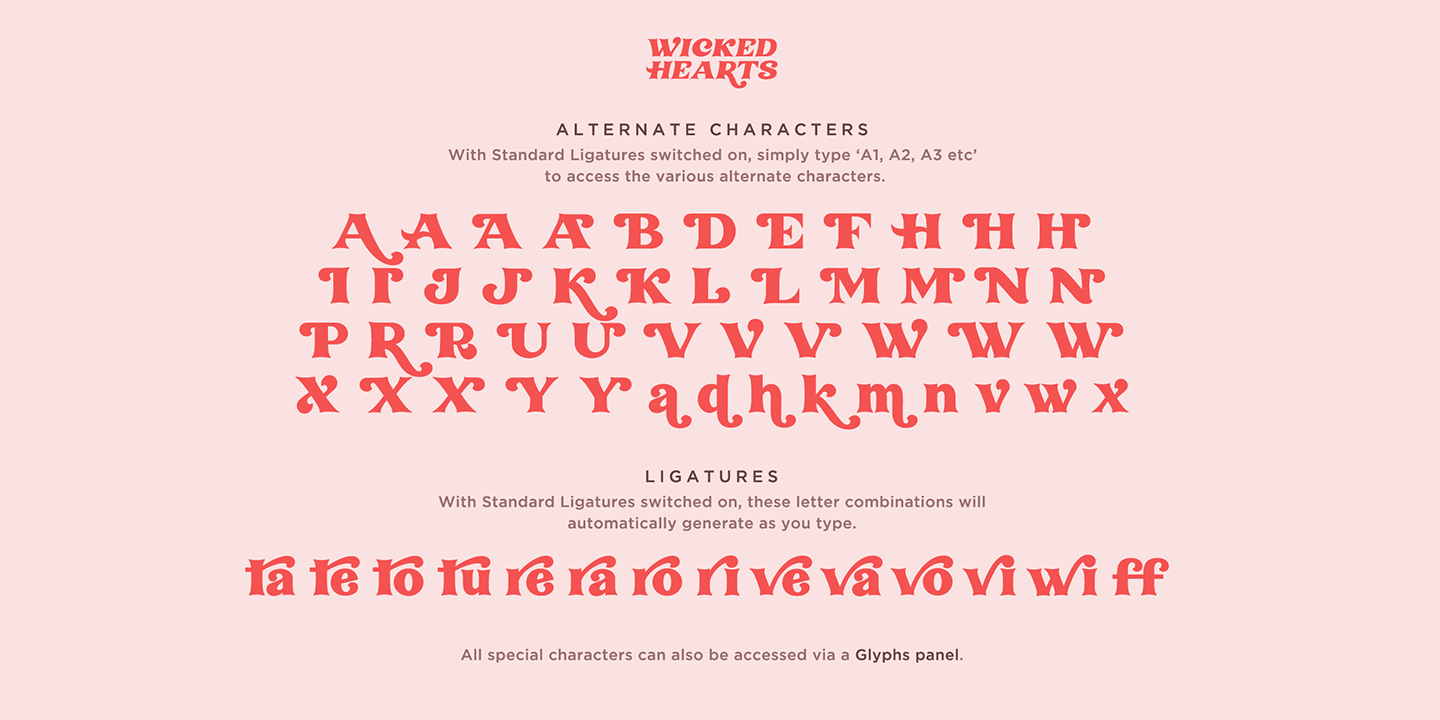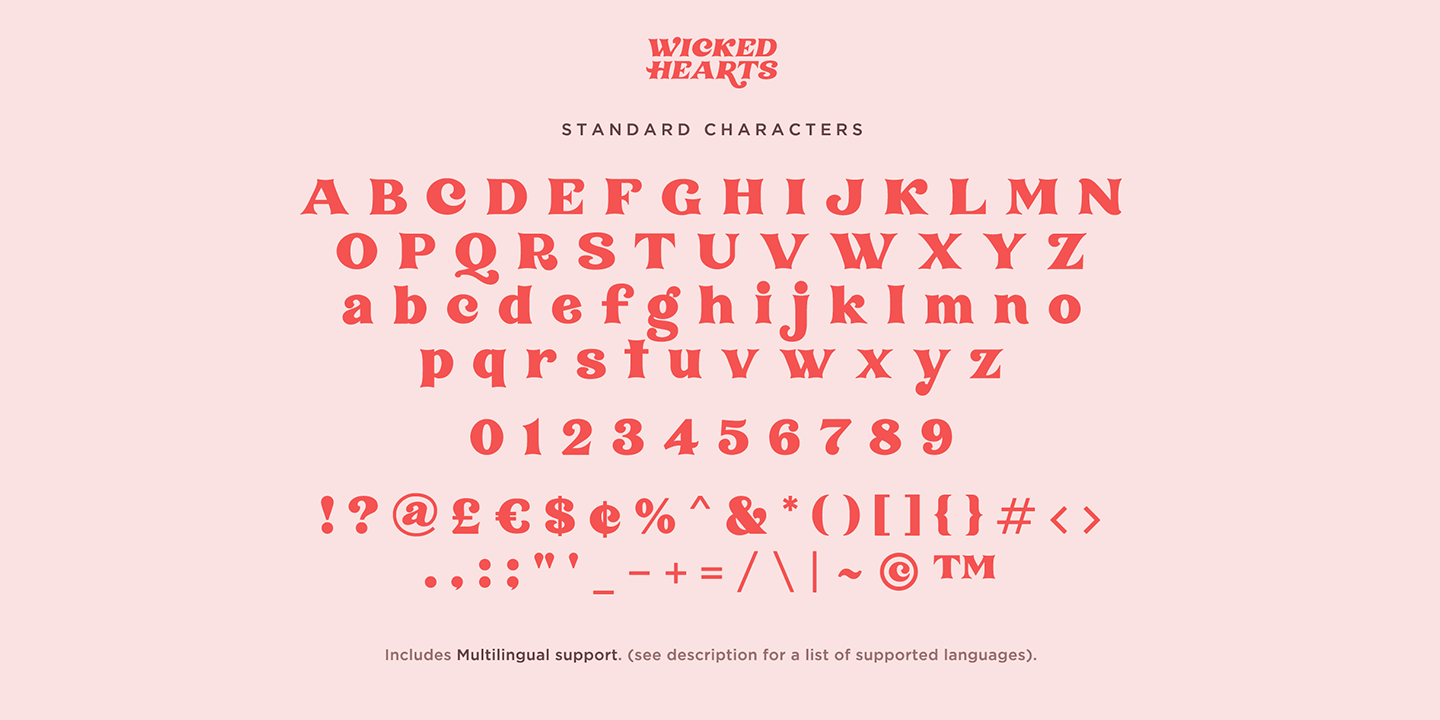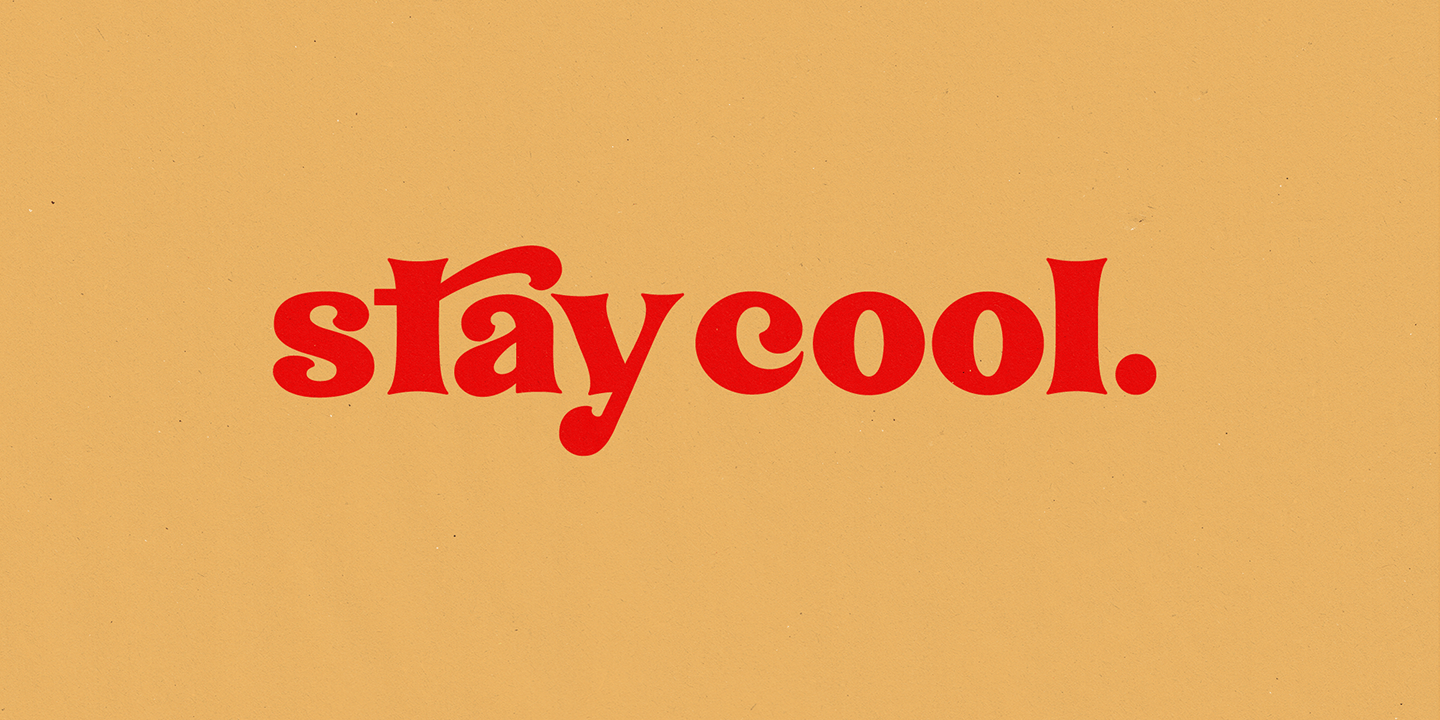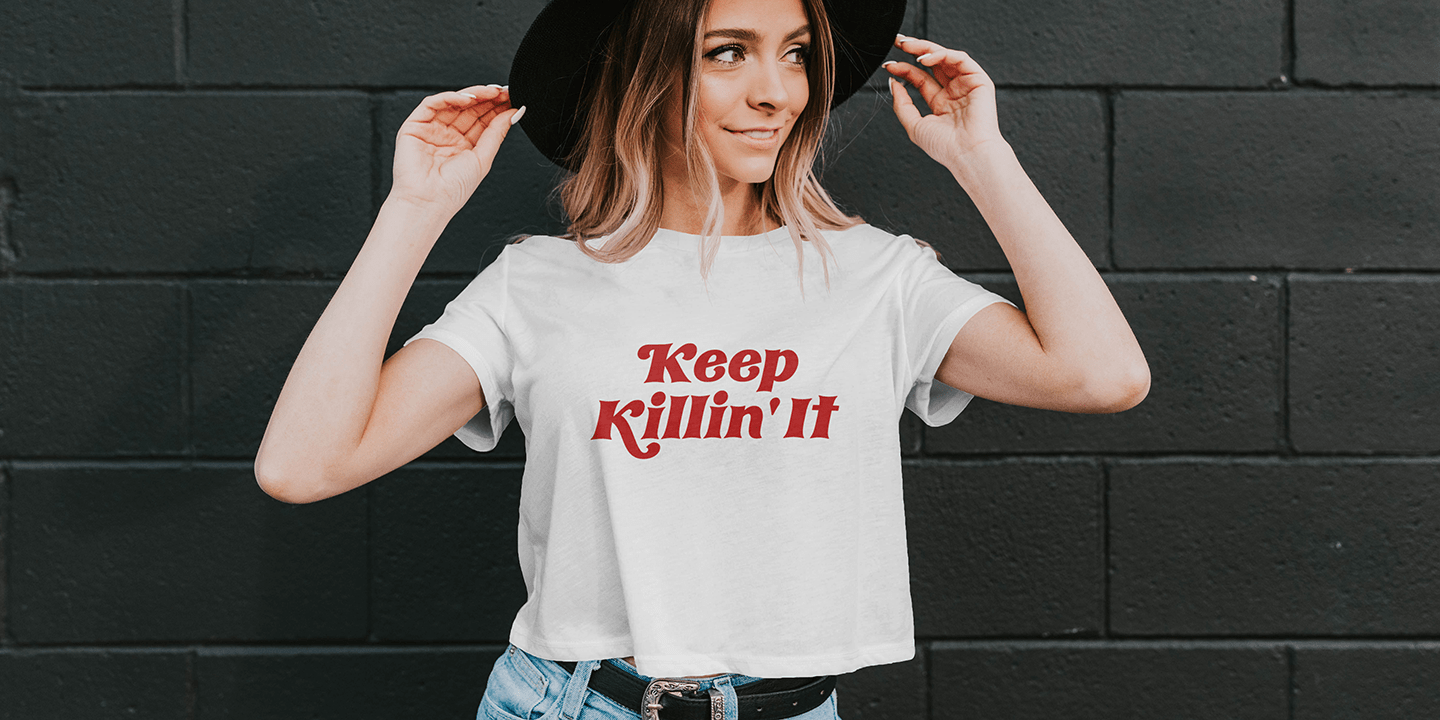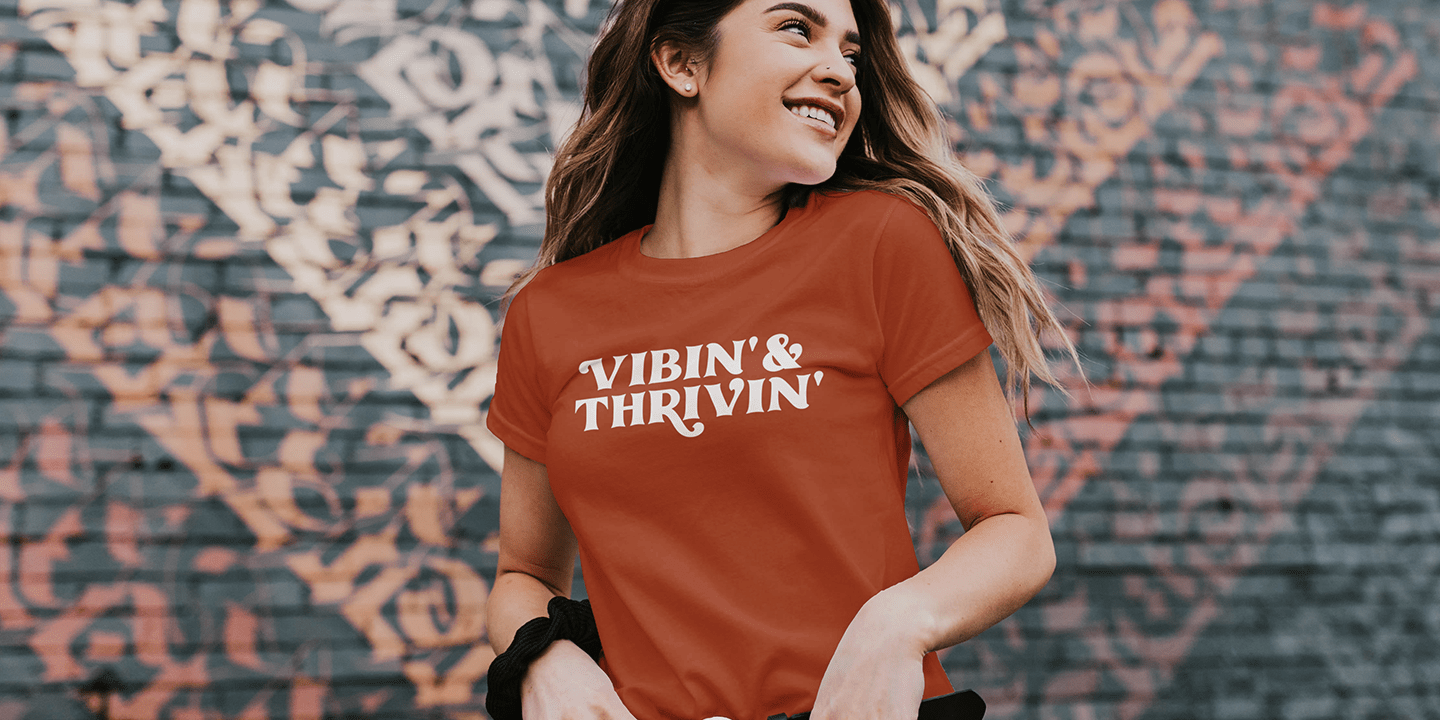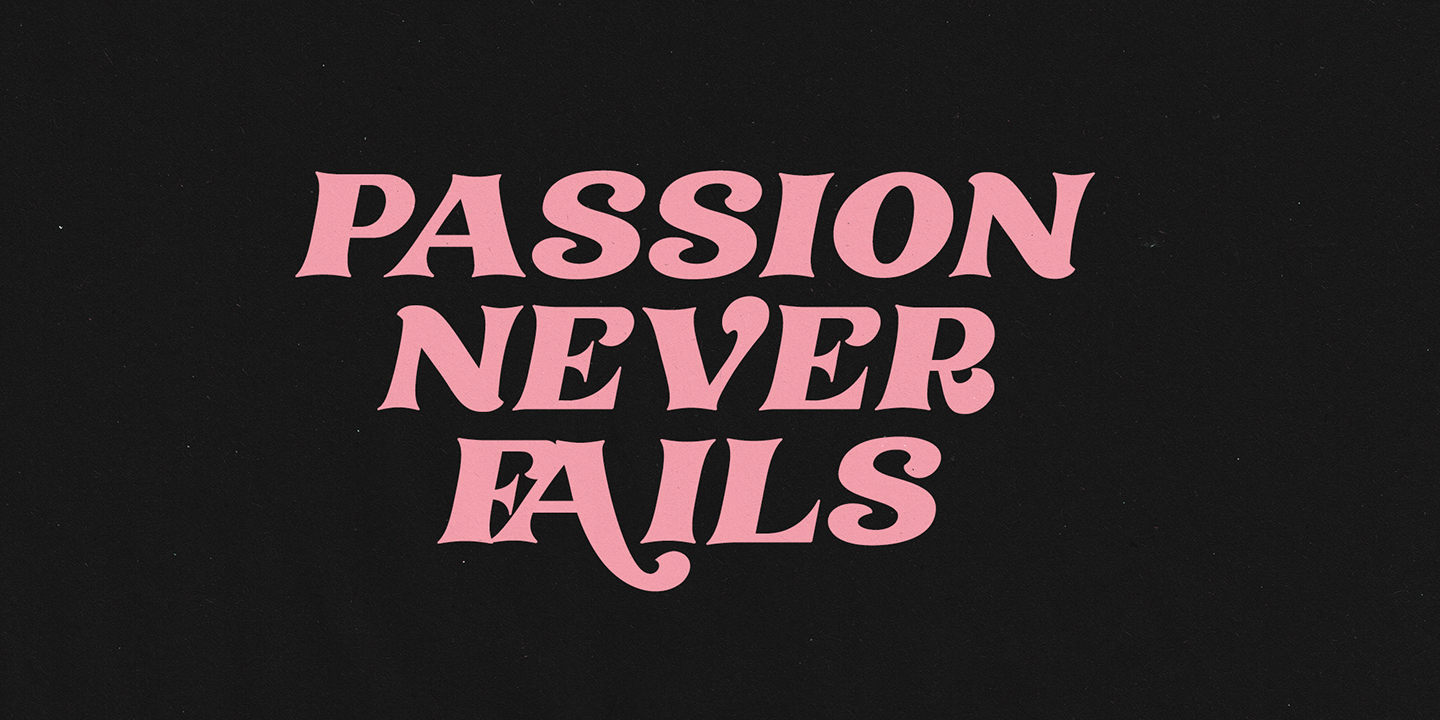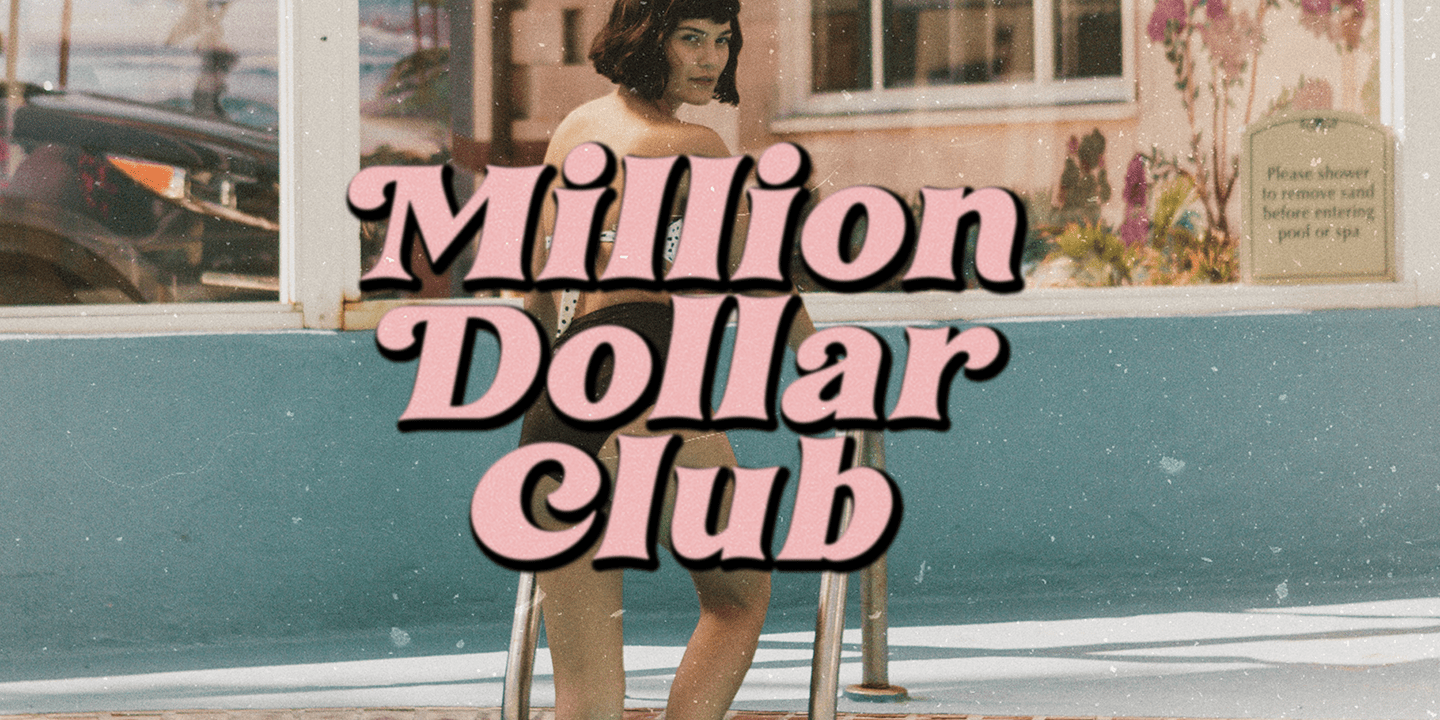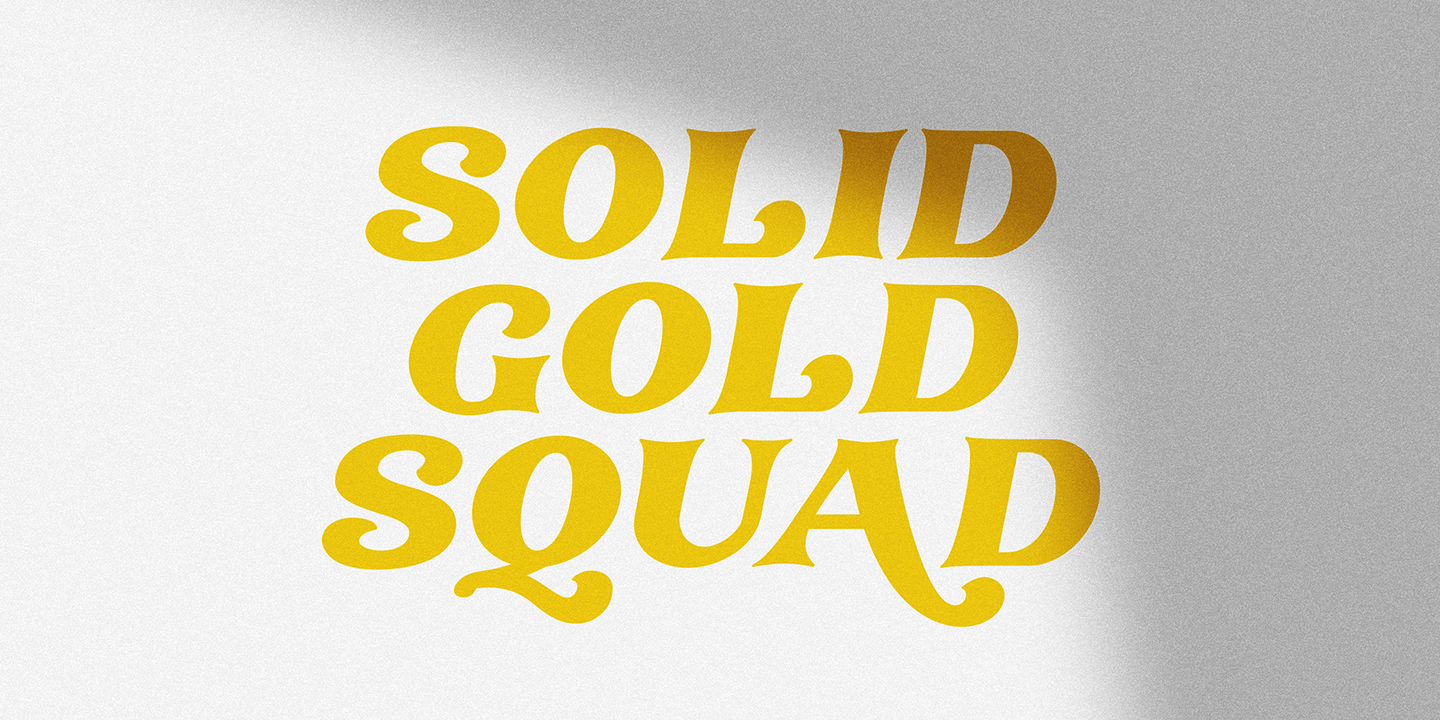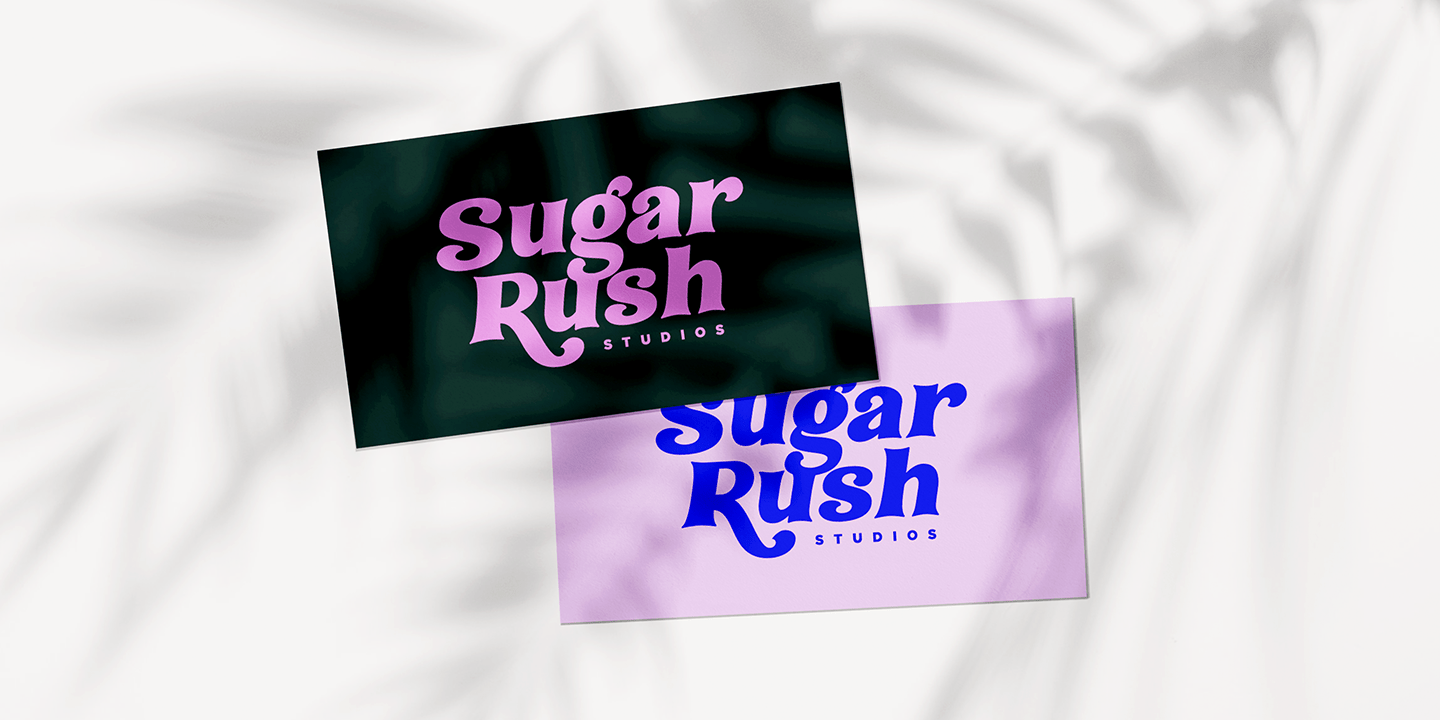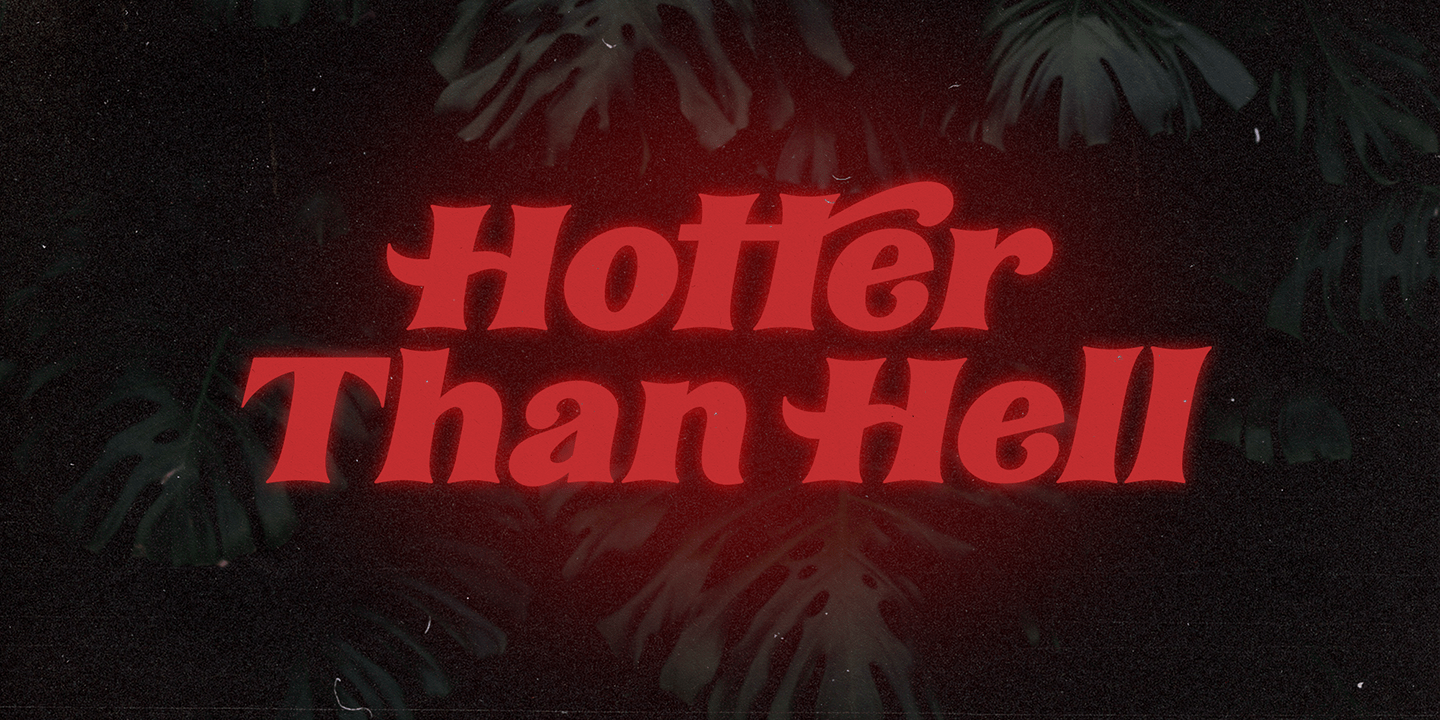
Wicked Hearts
Wicked Hearts Is a chunky Serif font with an edge - it's a cool modern take on a retro classic, and it's ready to make a lasting impression on your merchandise, quote designs, header text, logos & branding, advertisements and much more. It's packed with plenty of alternates and ligatures to really bring it to life, and give you a wide range of customization options.
Accessing Alternate Characters • Many letters of this font have multiple alternate versions (see image). In order to access each one, simply make sure 'Standard Ligatures' are enabled, and follow your letter with a number. For example, typing 'A1, A2, A3, A4' will generate the 4 alternate versions for capital A.
Accessing Ligatures • There are 12 lowercase ligatures (double letters) included. In order to access these, simply make sure 'Standard Ligatures' are enabled, and the ligatures will automatically generate as you type.
Language Support • Wicked Hearts supports the following languages; English, French, Italian, Spanish, Portuguese, German, Swedish, Norwegian, Danish, Dutch, Finnish, Indonesian, Malay, Hungarian, Polish, Croatian, Turkish, Romanian, Czech, Latvian, Lithuanian, Slovak, Slovenian